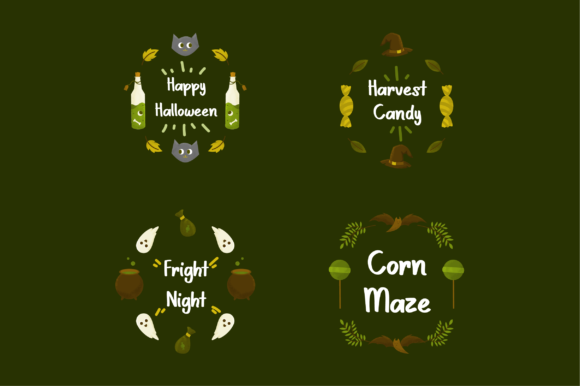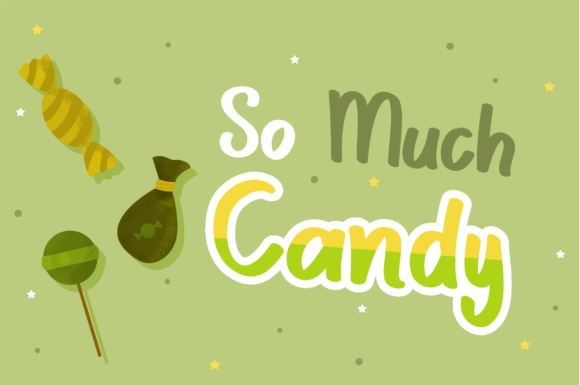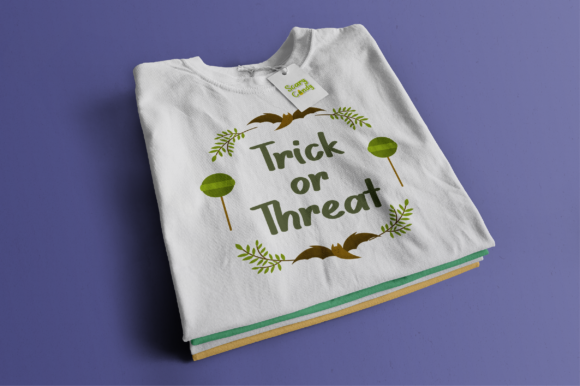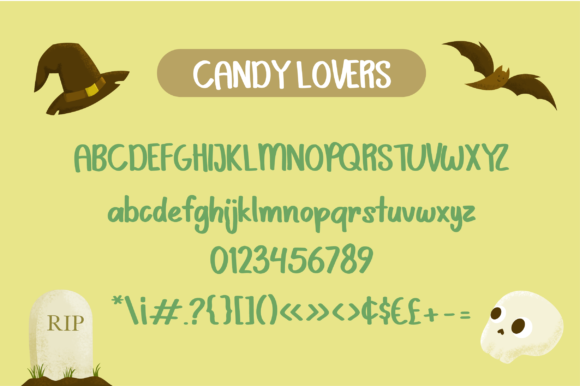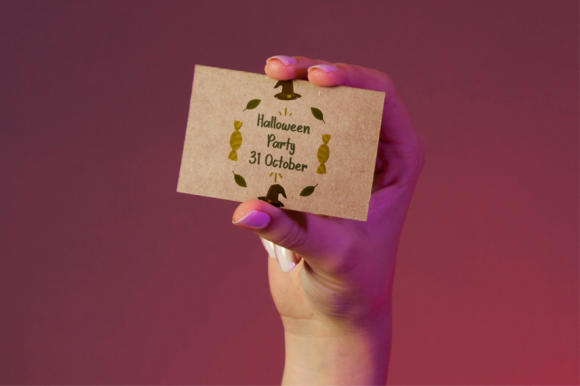
Introduction to Scary Candy Font
Scary Candy is a cute and friendly display font.
It will add an incredibly joyful touch to your designs Add this beautiful display font to each of your creative ideas and notice how it makes them stand out.